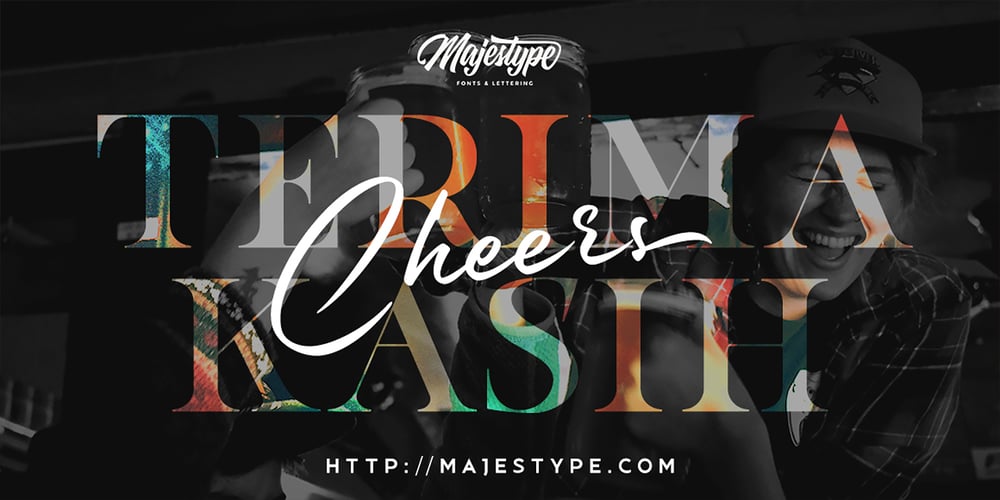
Rockyeah
Rockyeah font
Rockyeah Font Family was designed by Dexsar Harry Anugrah and published by Majestype. Rockyeah contains 3 styles and family package options. Rockyeah is 3 style fonts: brush, serif and sans serif who have strong personalities and work very well in many design projects. – Rockyeah Brush made with fine brush pen with the fastest stroke movement. Comes with over 300 glyphs that will give you a vast possibility to play with each character. – Rockyeah Serif is an interpretation of Rockyeah brush. A serif font that focuses on legible, elegant and unique. With light and bold stroke combination this serif will give a modern-classic vibes on your design project. – Rockyeah Sans a geometric sans serif that focuses on legible, clean and useful for any project. This sans is an interpretation of Rockyeah Serif with the same caps height and bold stroke. This font is suitable for poster, tattoo, tees graphic, headline and etc 🙂 Just play and rock it!